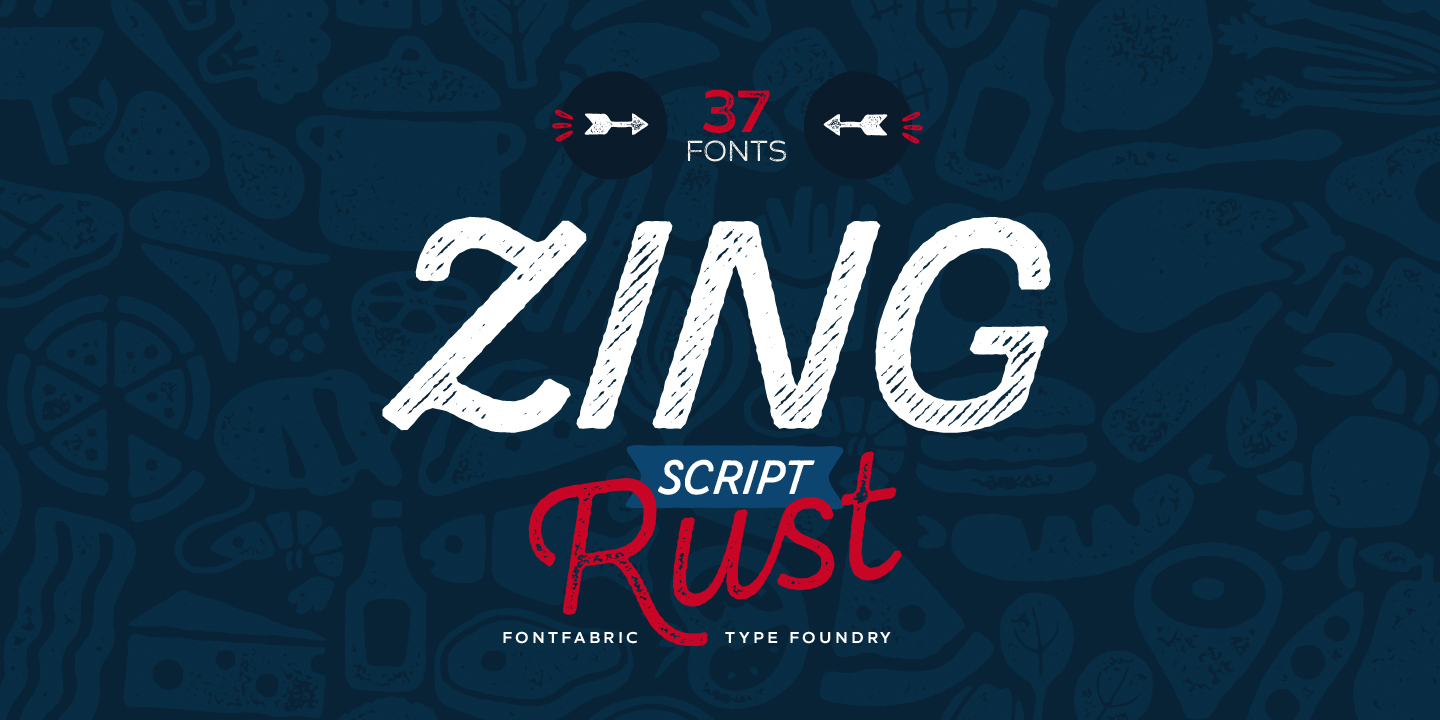
Zing Script Rust Font Free Download is a bold, rebellious, and highly expressive script typeface that breaks the mold with its dynamic brush strokes and rough, textured edges. Designed for those who dare to be different, this font is a favorite among creatives working on edgy branding, bold poster designs, album covers, and eye-catching merchandise.
With its hand-lettered style and organic feel, Zing Script Rust brings a raw energy to your typography. Each character has been crafted with attention to flow and form, resulting in a font that feels alive on the page or screen. It’s ideal for projects that call for a handcrafted touch with a modern attitude.